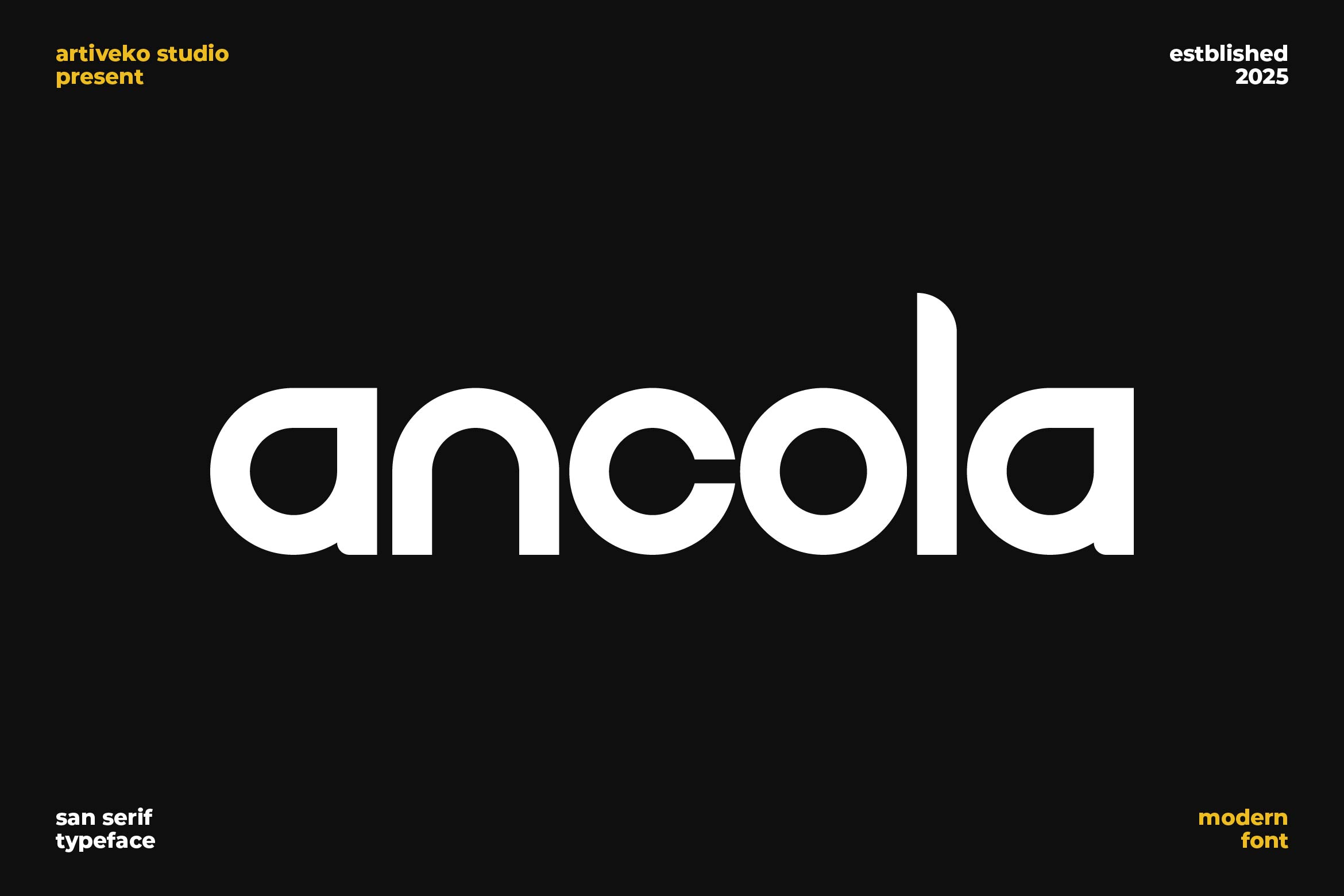
- Ancola Clean Elegance Logo Font
Ancola is a clean and versatile sans serif font designed specifically for creating strong, memorable logos and professional brand identities. With its geometric structure, sharp lines, and minimalistic elegance, Ancola is perfect for wordmarks, packaging, editorial titles, website headers, and social media graphics.
Its well-crafted proportions ensure excellent readability while adding a premium, modern touch to any design project. Ancola adapts seamlessly across industries such as fashion, tech, lifestyle, and creative agencies, making it a go-to choice for impactful branding.
The font includes uppercase and lowercase letters, numerals, punctuation, multilingual support, and stylistic alternates for enhanced customization and unique typography creation.
Build a distinctive and lasting brand presence with Ancola — the logo font that combines precision, simplicity, and timeless modern style.